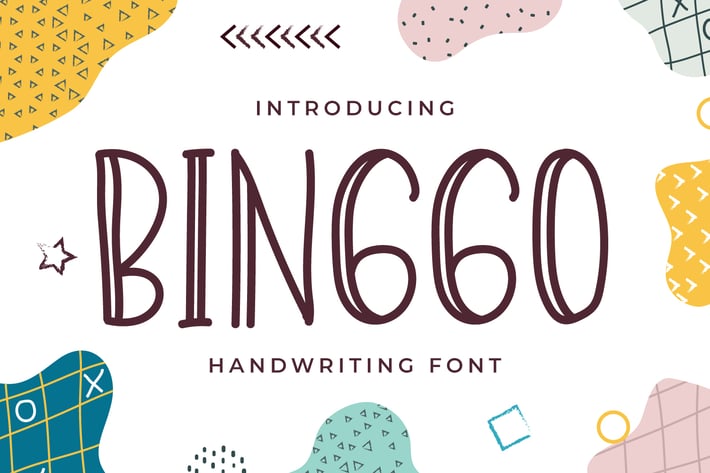
Binggo - Cute Handwriting Font
Introducing Binggo - Cute Handwriting Font
Binggo is a lovely and fun display font. Add this cute and friendly font to your library and you will employ it to a wide range of creations that require a jolly touch.